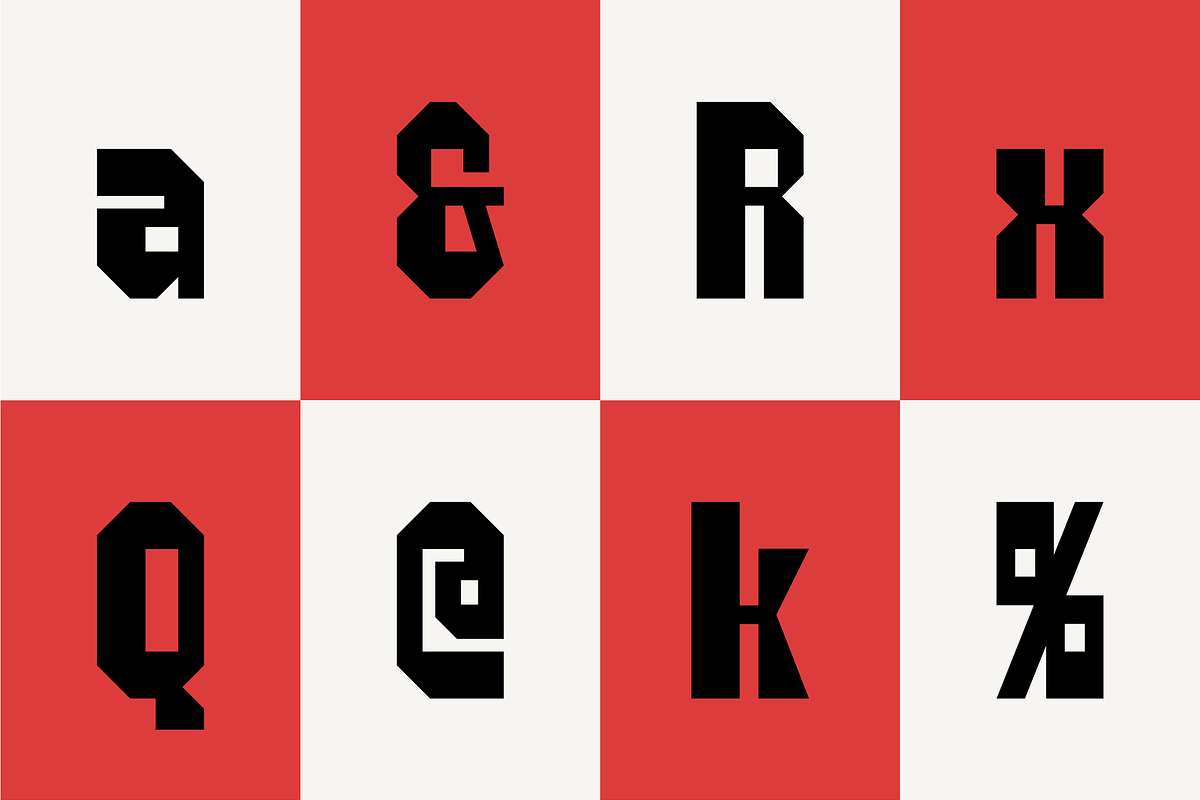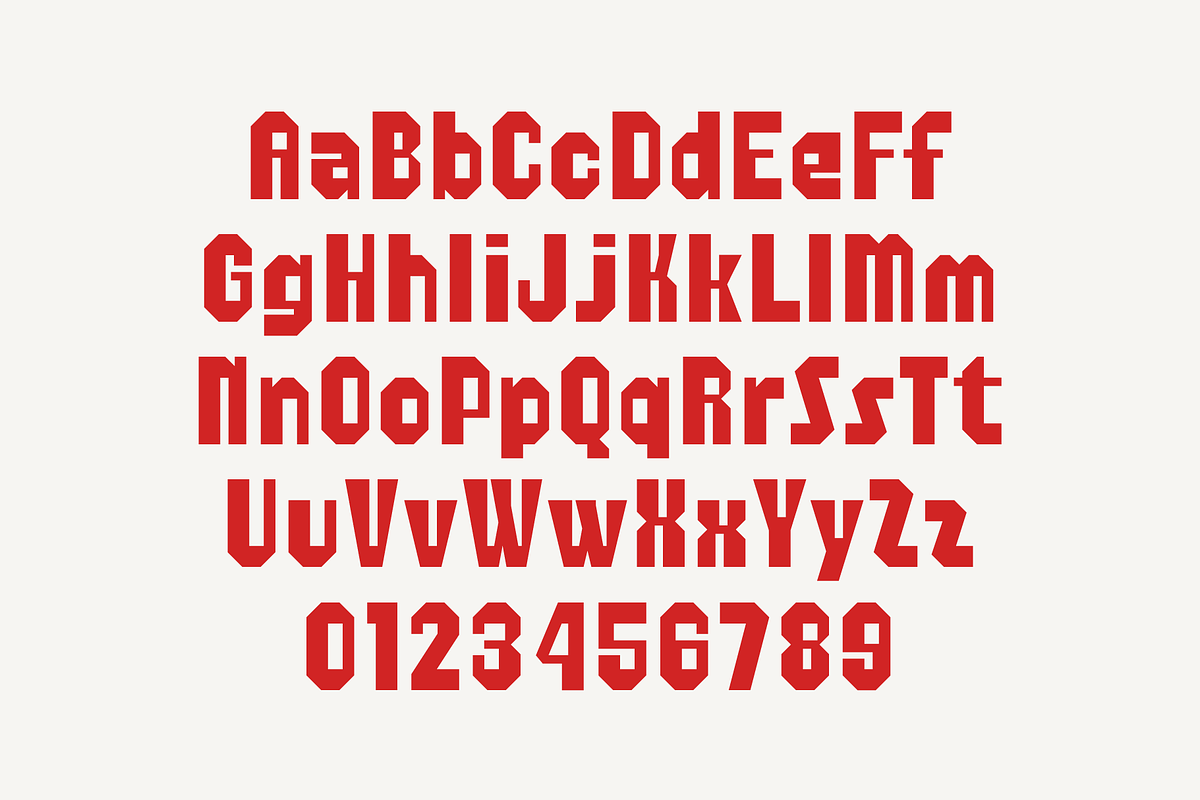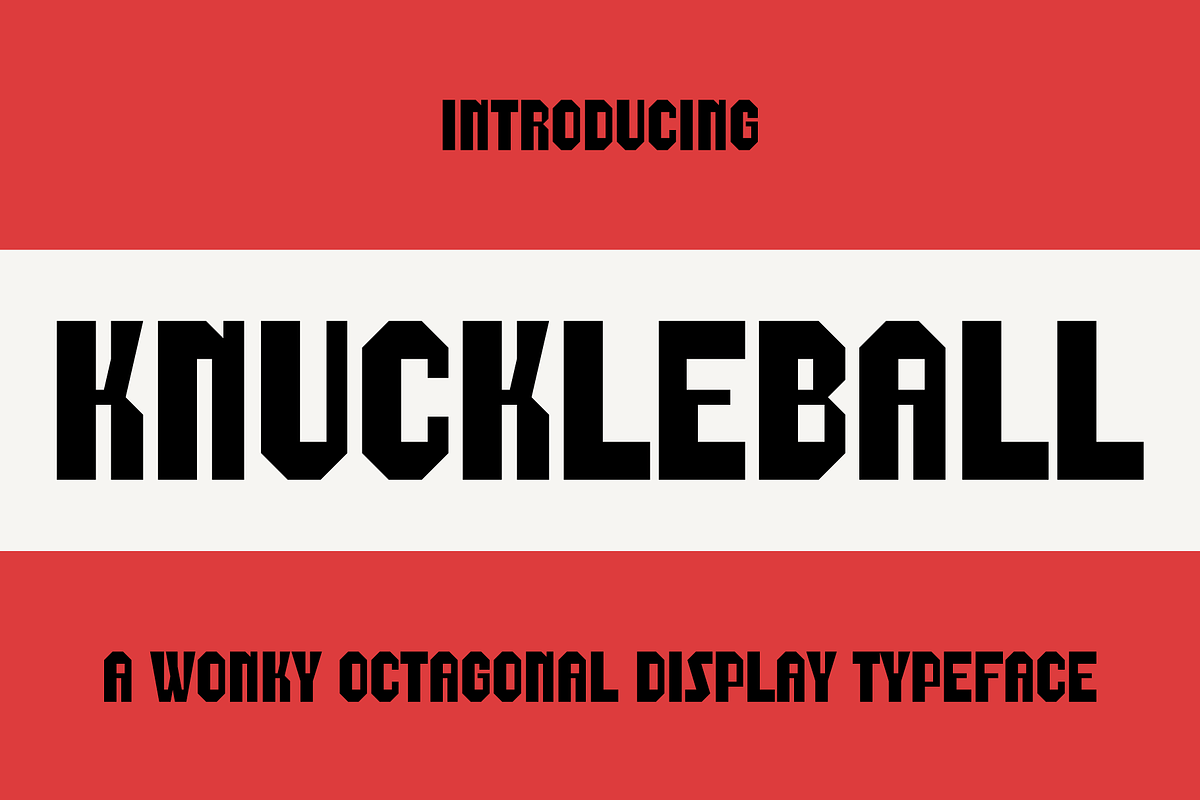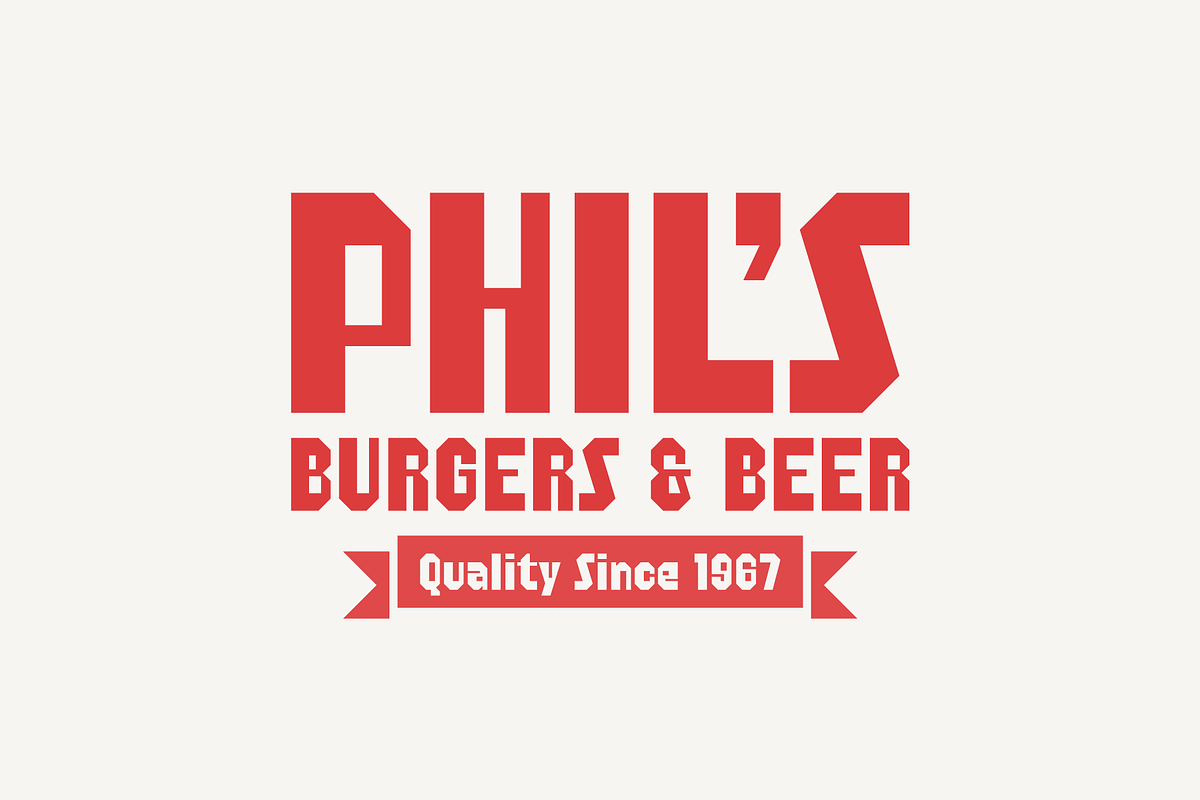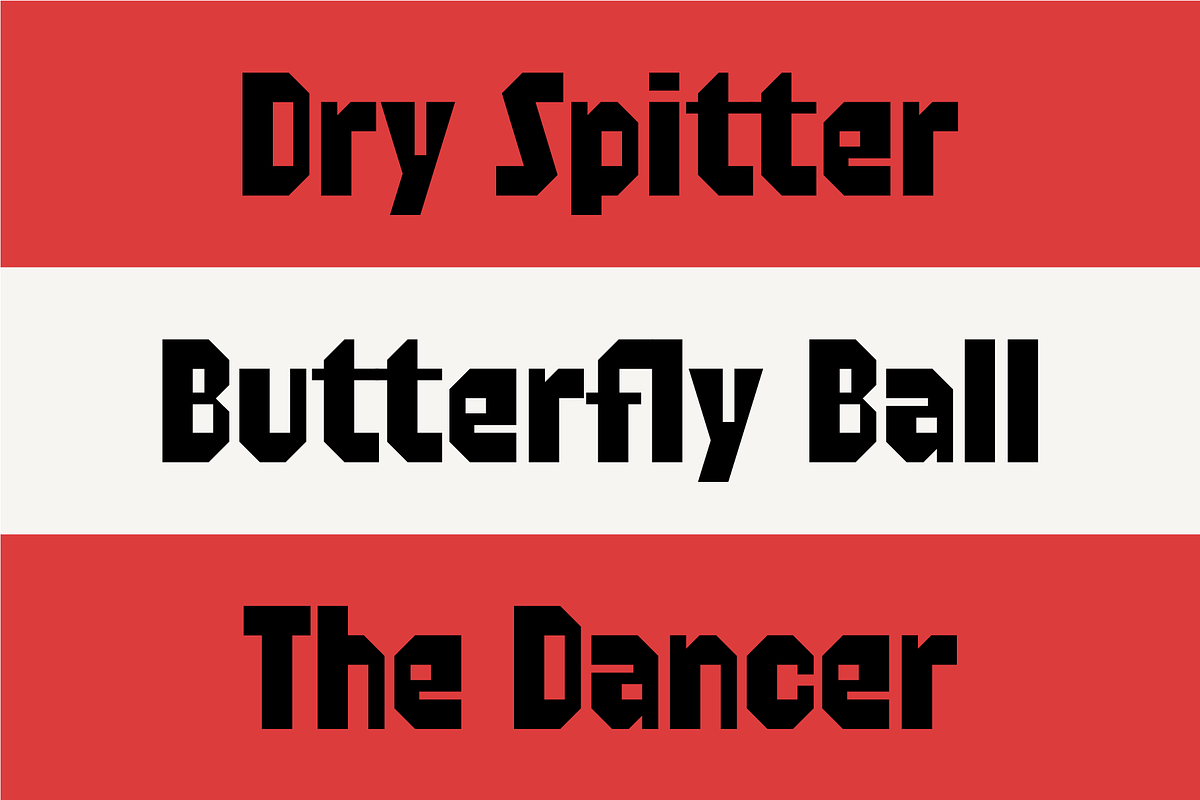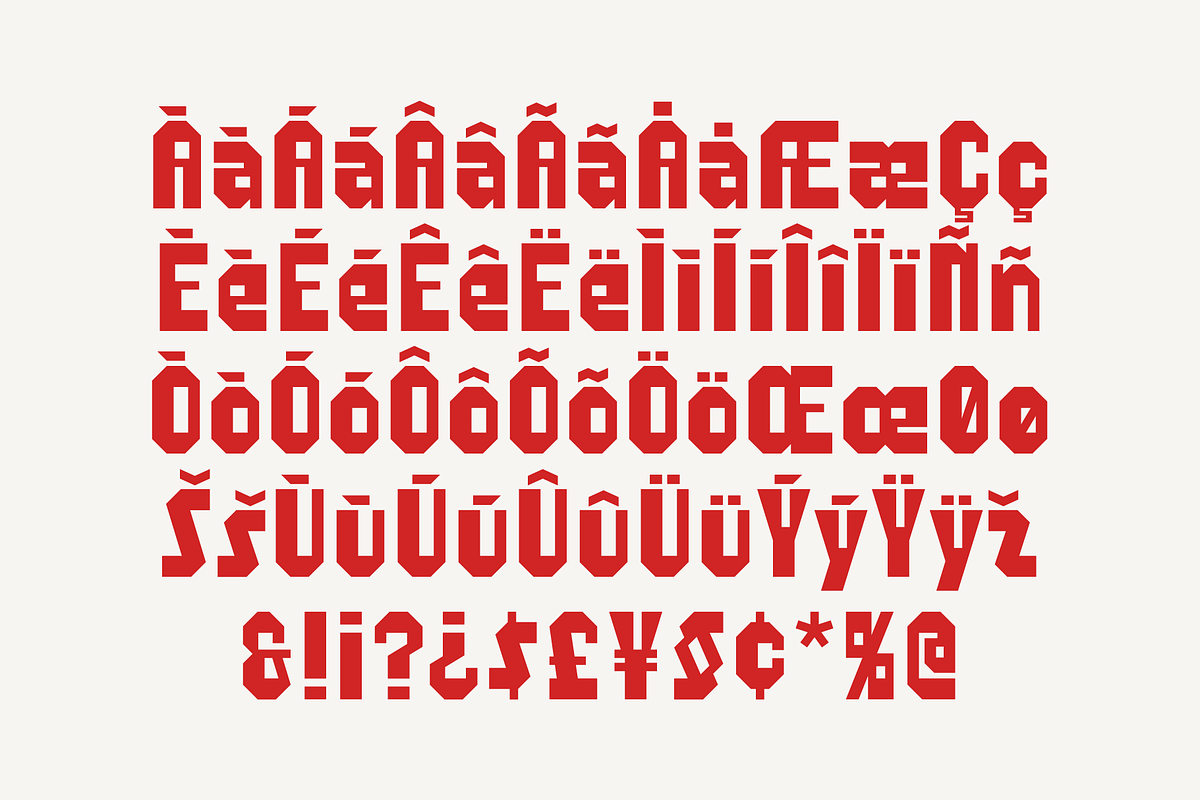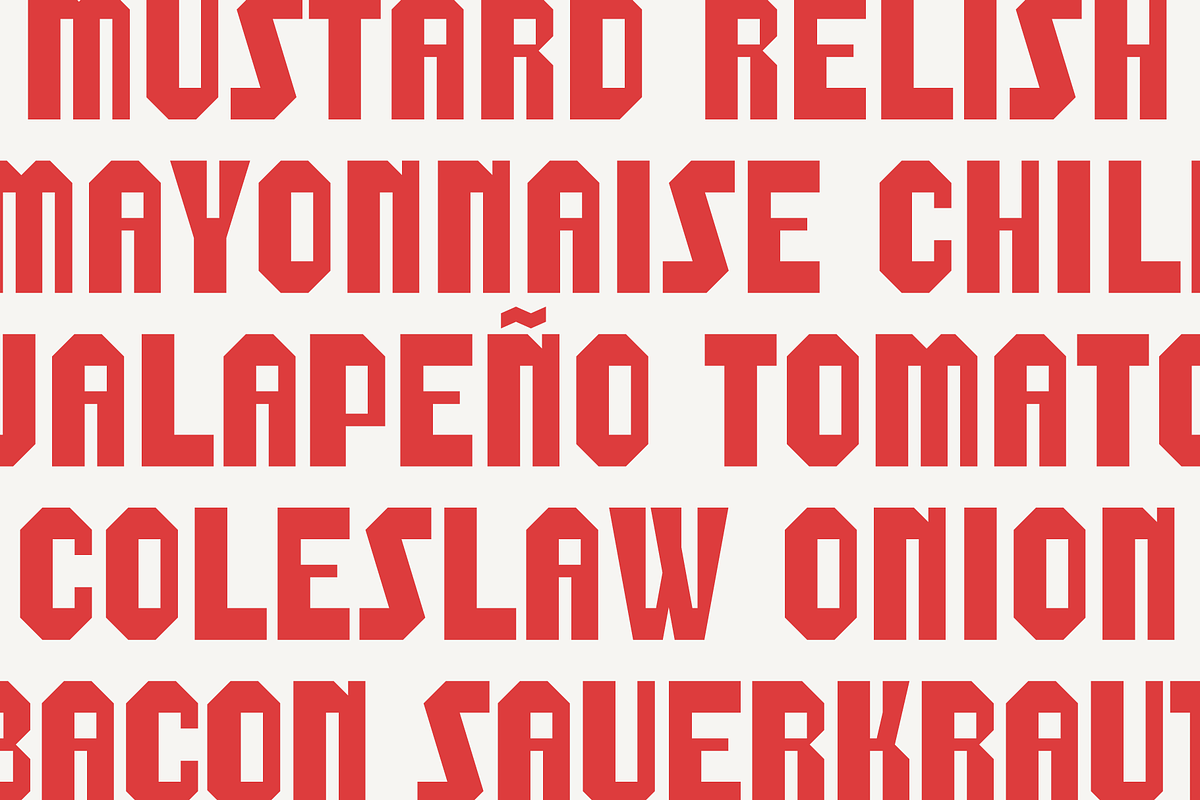
Knuckleball
Knuckleball is a wonky, octagonal sans-serif typeface produced by Bebop Font Foundry in 2023. The font shares its name with the elusive knuckleball - a baseball term for a pitch that is thrown without spin. The throw is erratic and unpredictable due to the airflow over the motionless seams. The strange and unexpected letterforms of the font represent the pitch's movement. Knuckleball is ideal for logos, branding, and merchandise.